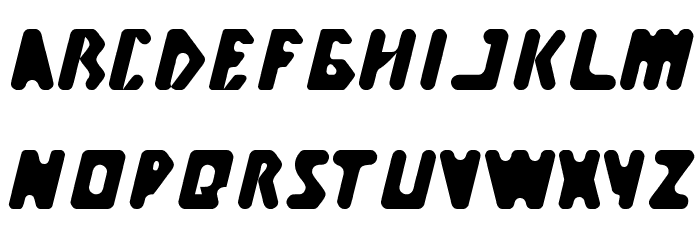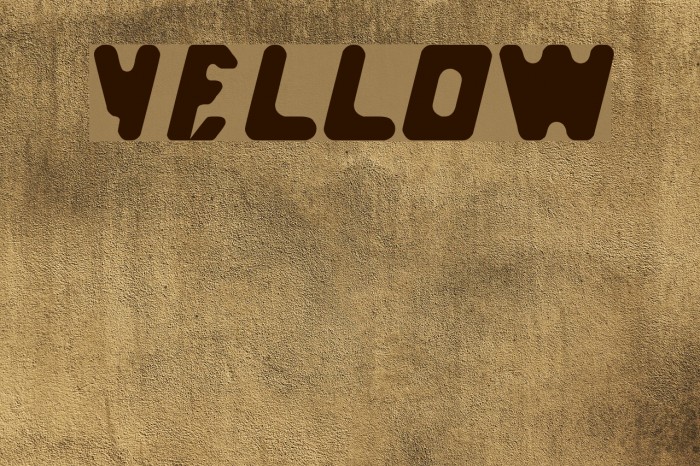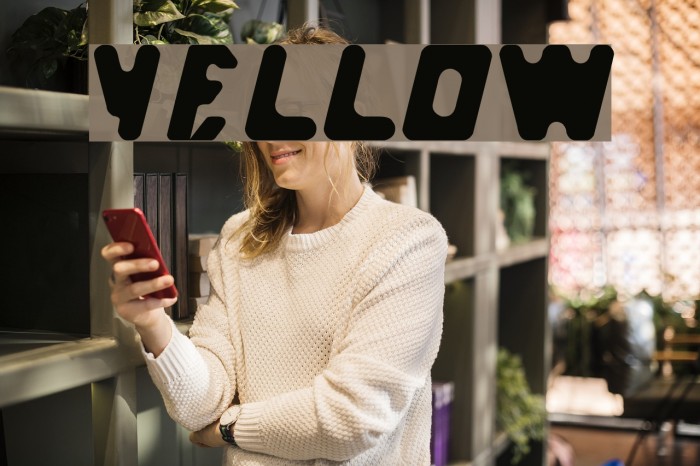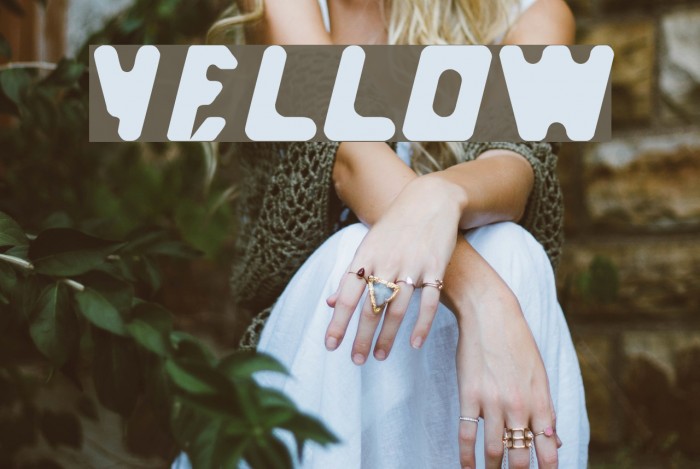
yellow Font
This font features bold, geometric letterforms with a distinct, angular style. Each character is crafted with thick strokes and sharp edges, creating a strong visual impact. The design is modern and somewhat futuristic, with a playful yet assertive presence. The uppercase letters are particularly striking, with their solid, block-like appearance. The font lacks lowercase letters and numerals, focusing solely on uppercase characters. Its unique style makes it ideal for attention-grabbing headlines or logos that require a bold statement.
A bold, geometric font with angular, modern letterforms.
- Proposed Projects: Ideal for branding, posters, and headlines that require a strong, modern aesthetic.